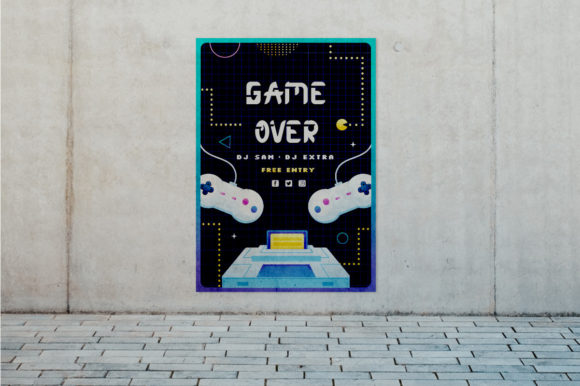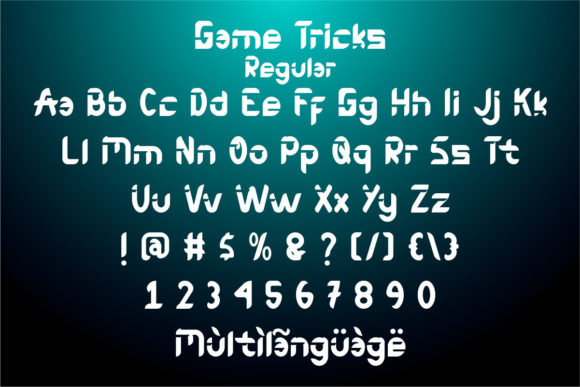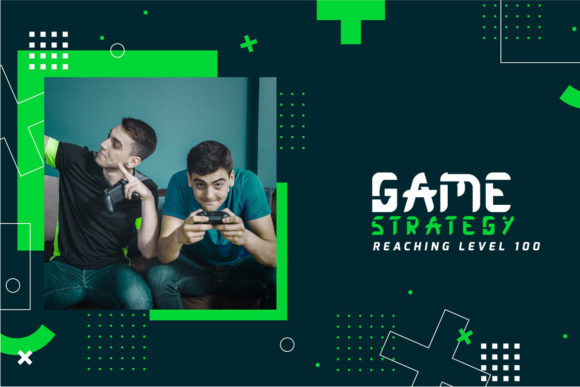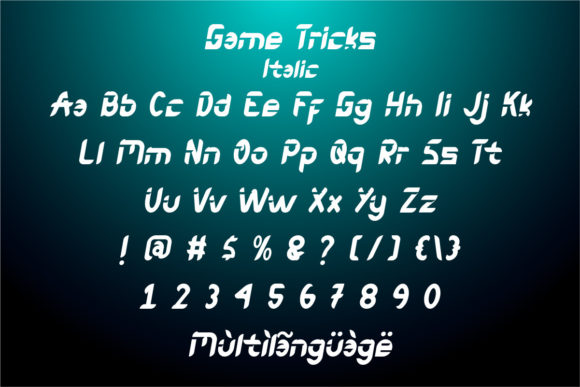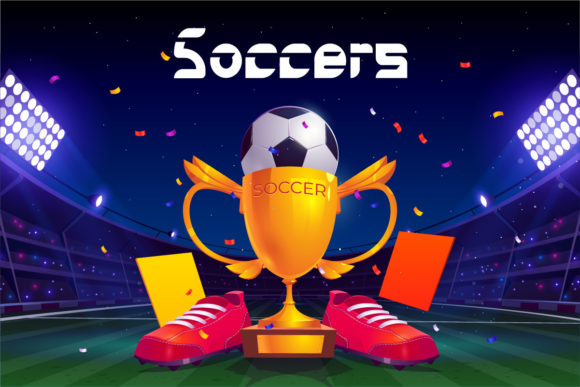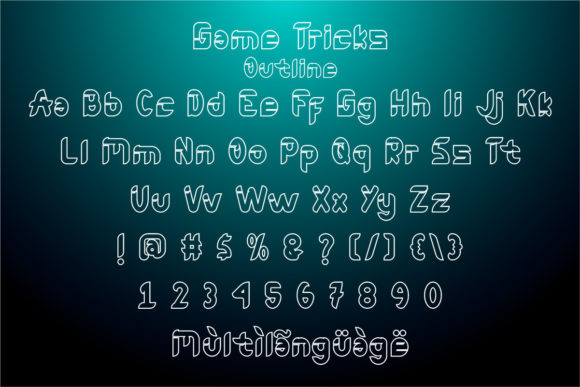
Introduction to Game Tricks Font
Do you remember the rush of excitement you felt when you first saw a poster for your favorite video game or concert? The bold headlines, the vibrant colors, and the sleek typography all came together to create an unforgettable visual experience. For designers, creating that same impact in their projects is a constant challenge, but with the right tools, it’s achievable. That’s where the Game Tricks Font comes in – a unique display font that’s perfect for adding a touch of high-quality, retro-futuristic flair to your creative projects.
With its futuristic and edgy style, the Game Tricks Font is a game-changer for designers who want to stand out from the crowd. Whether you’re working on a game, a technology event, or a spaceship project, this font is sure to bring a special effect to your design projects. And the best part? It’s available for a free download, making it an essential design resource for any creative project.
Key Features of Game Tricks Font
- High-quality, unique design suitable for creative projects, including video games, graphic novels, and comics.
- Includes a wide range of characters, including letters, numbers, and special symbols, making it a versatile design resource.
- Designed with a modern, edgy aesthetic, perfect for adding a touch of sophistication to any creative project.
Honest Review: Game Tricks Font
I recently stumbled upon the Game Tricks Font and was excited to give it a try. As a designer, I’m always on the lookout for high quality design resources that can elevate my creative projects. And I have to say, Game Tricks Font did not disappoint.
What works well: ✨ The font is available for free download, which is a huge plus in my book. It’s also incredibly versatile, making it perfect for a wide range of design projects. The font features a transparent background, which allows for seamless integration into any design.
- Perfect for video game-themed projects, but also suitable for other creative projects
- High quality and versatile font that’s perfect for a wide range of design projects
Overall impression: I’m really impressed with the Game Tricks Font. It’s a great design resource that’s perfect for creative projects. While there are some limitations, I think it’s a great option for designers who are looking for a high quality font at an affordable price.
Game Tricks Font